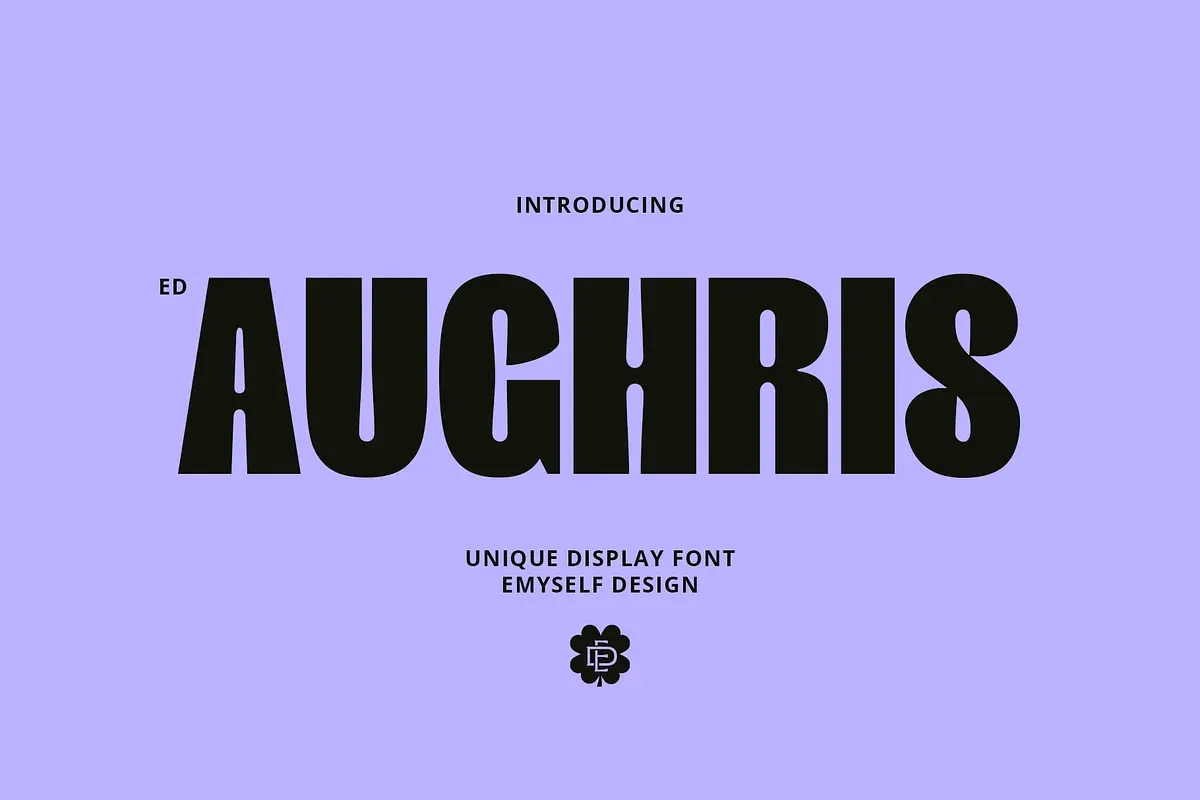
ED Aughris – Display Sans Font Free Download is a clean and contemporary sans-serif typeface designed for impactful display use. With its sharp lines and bold presence, this font is perfect for branding, posters, headlines, and modern digital interfaces where clarity and style matter most.
Engineered to be both functional and stylish, ED Aughris – Display Sans Font Free Download strikes the perfect balance between minimalism and personality. Its sleek geometry and consistent rhythm make it a versatile choice for designers looking to create polished, professional visuals. Whether you’re working on a tech brand, editorial spread, or web banner, this font delivers the visual punch your project needs. Try it now before investing in the commercial version.